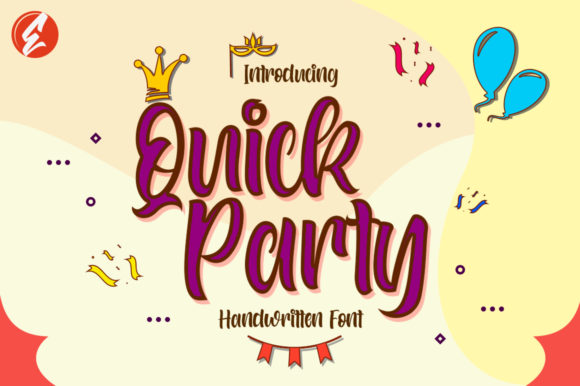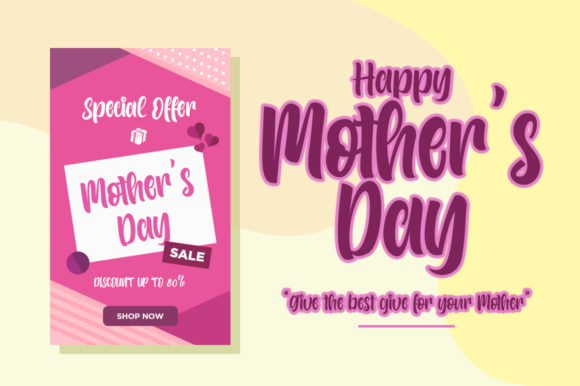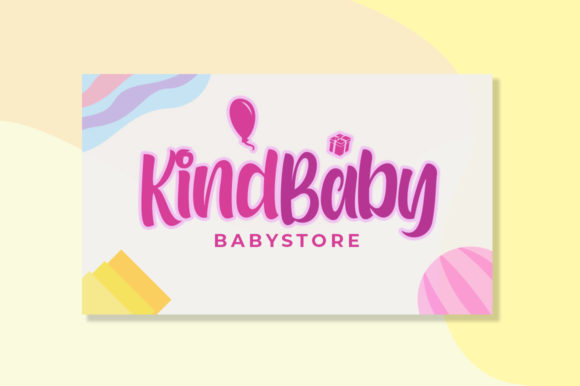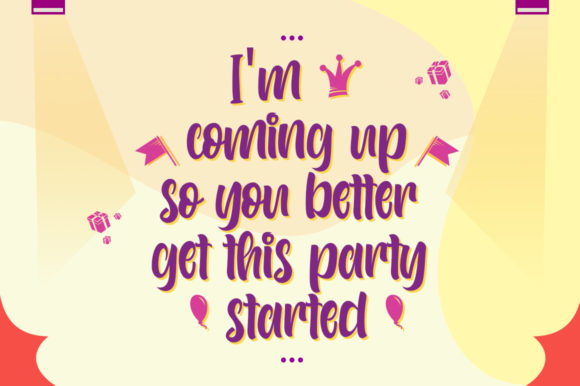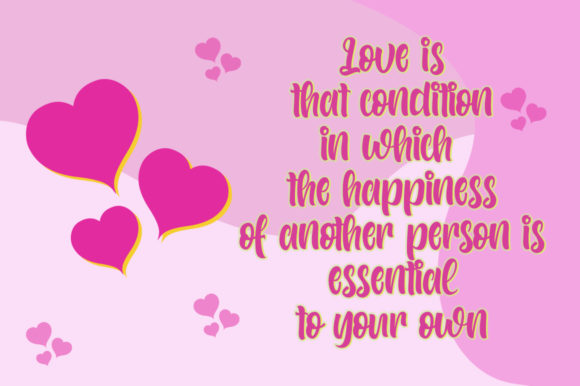
Quick Party Font
About Quick Party Font
Quick Party embodies fun, cuteness and authenticity. This enchanting handwritten font will turn any creative idea into a true standout. Get creative with its childlike playfulness, and use it to brighten up any kids and school project!